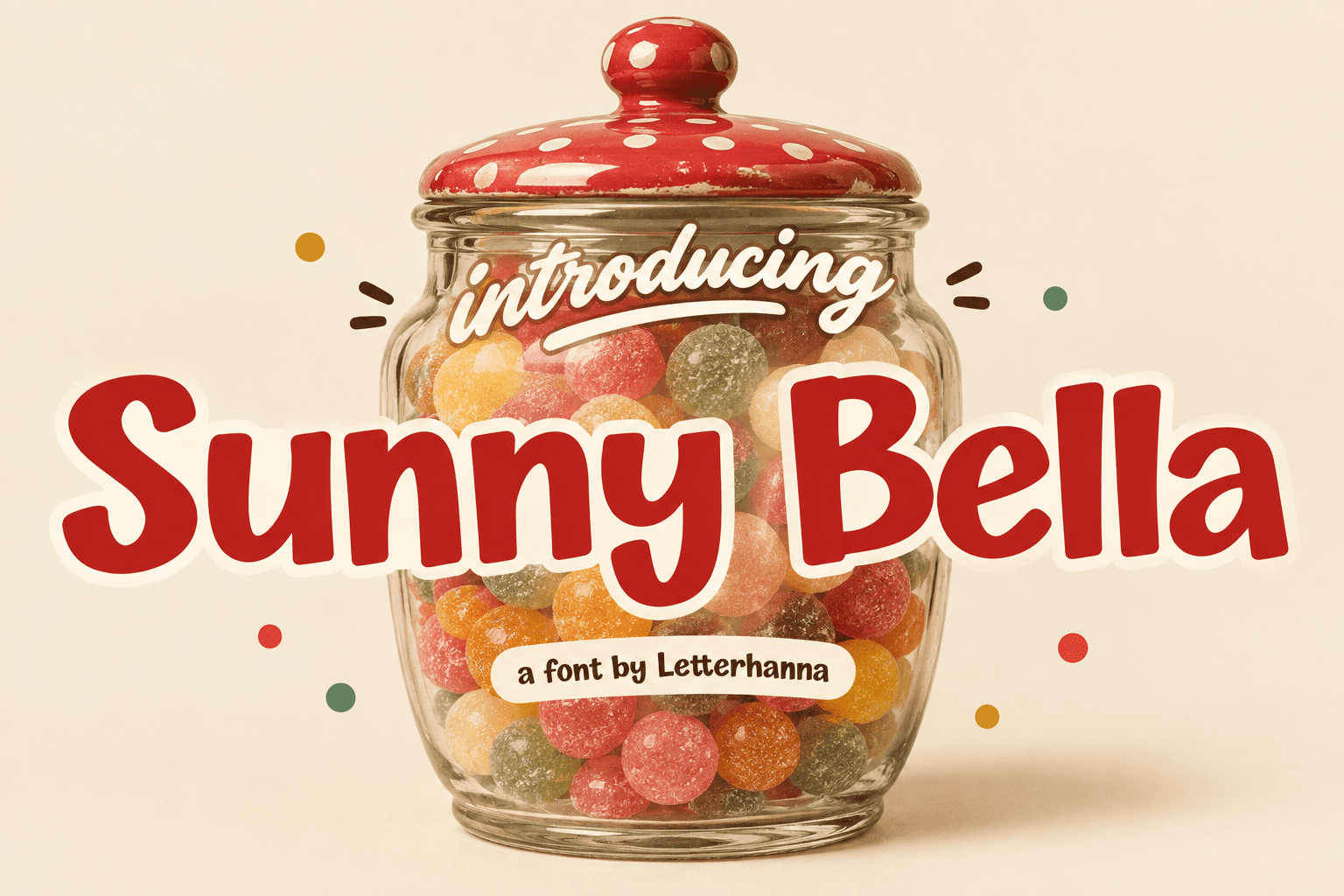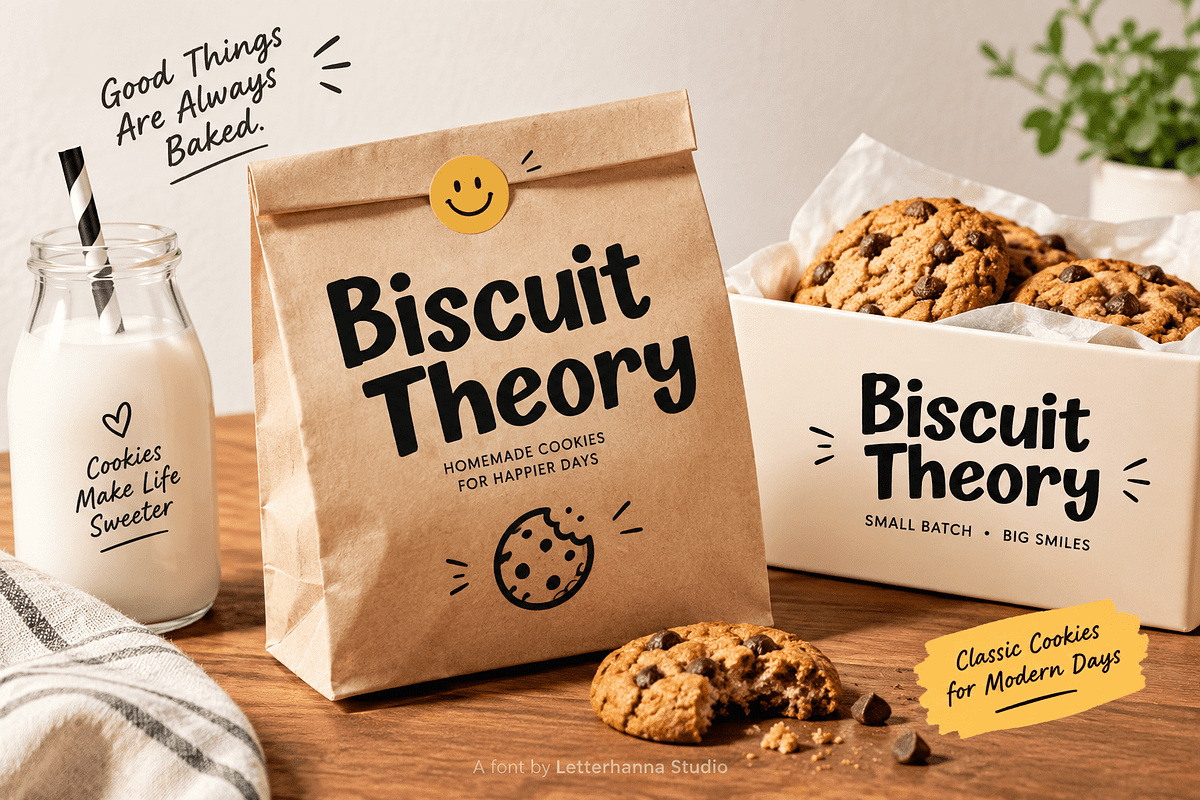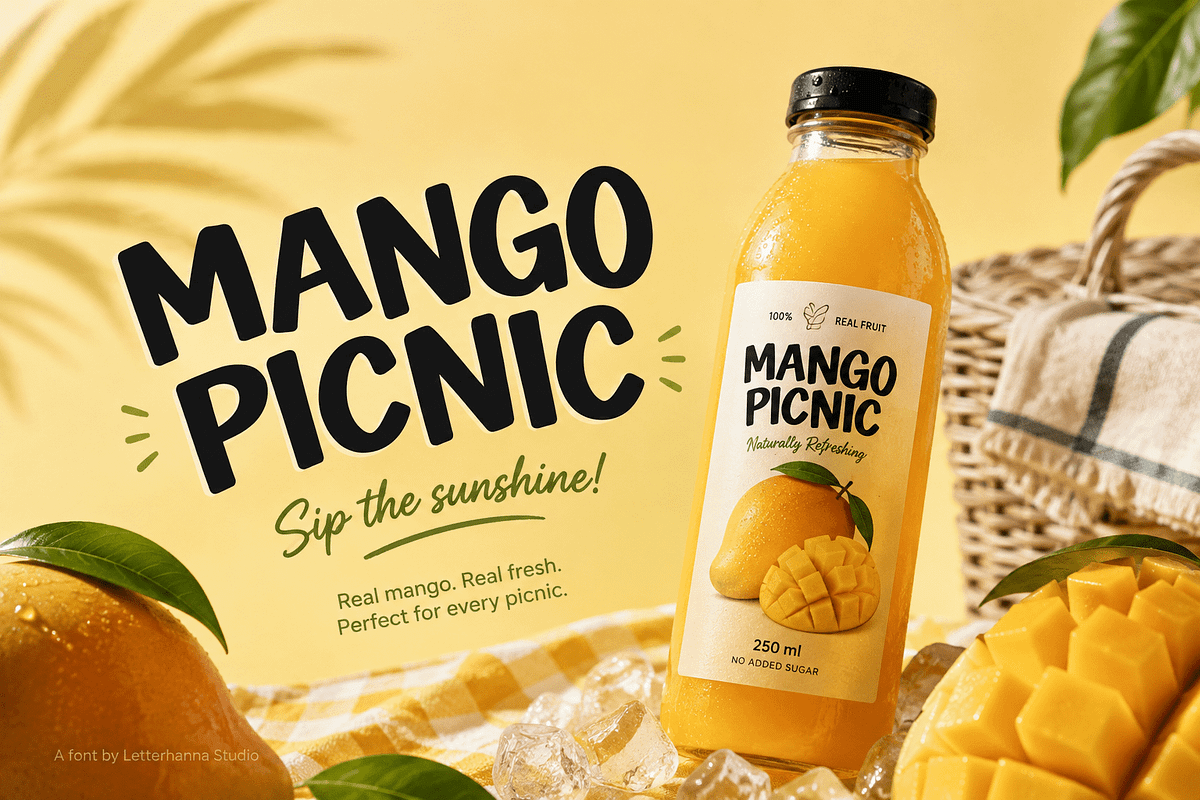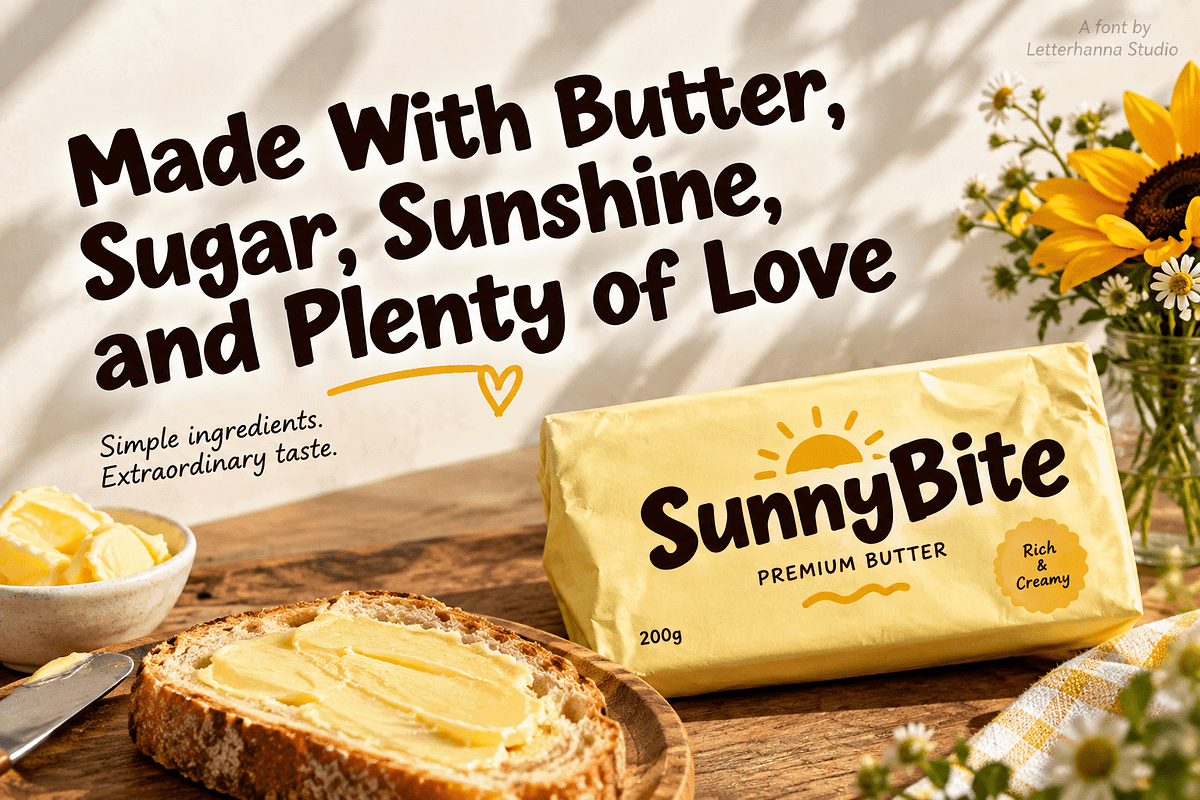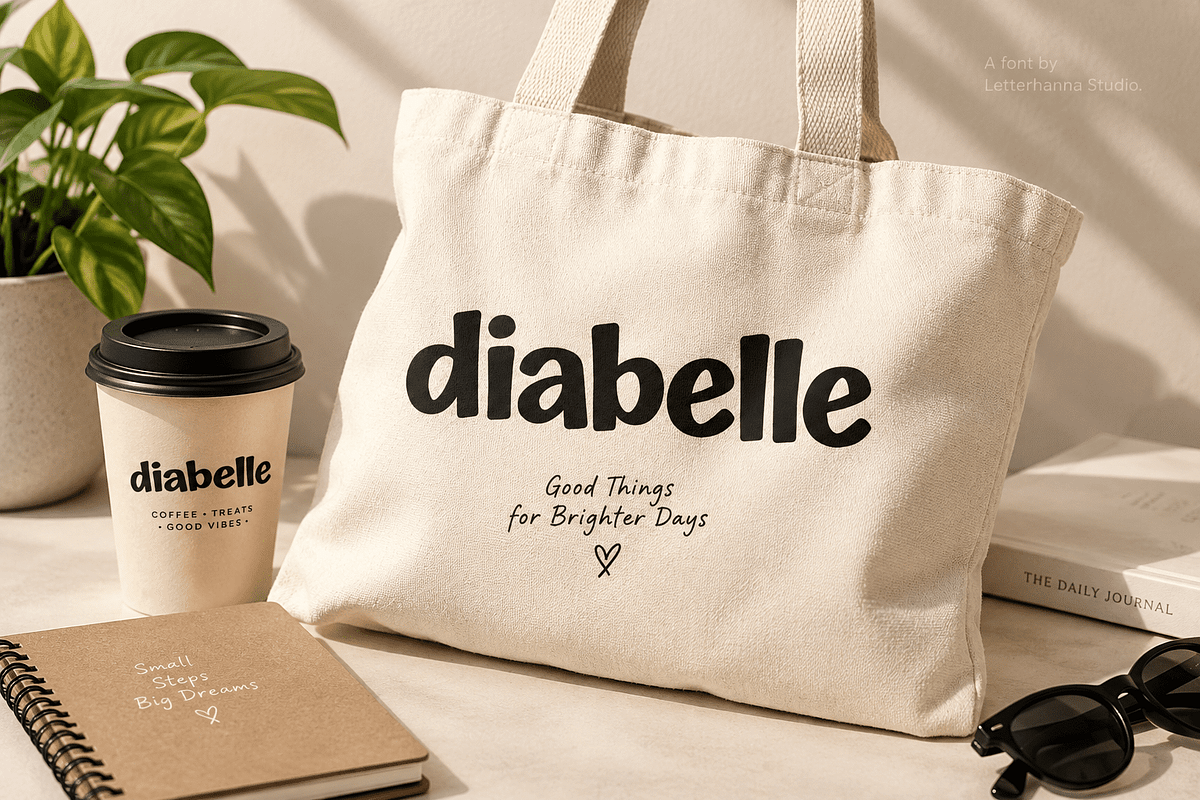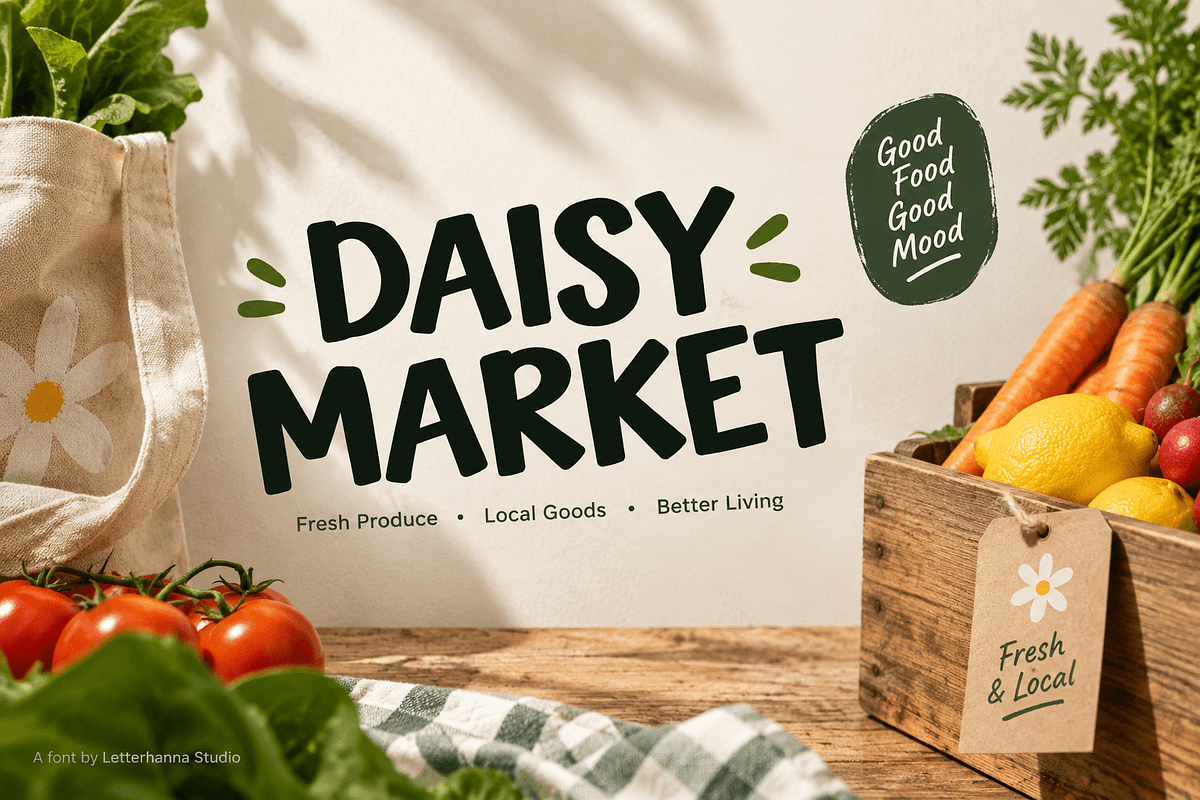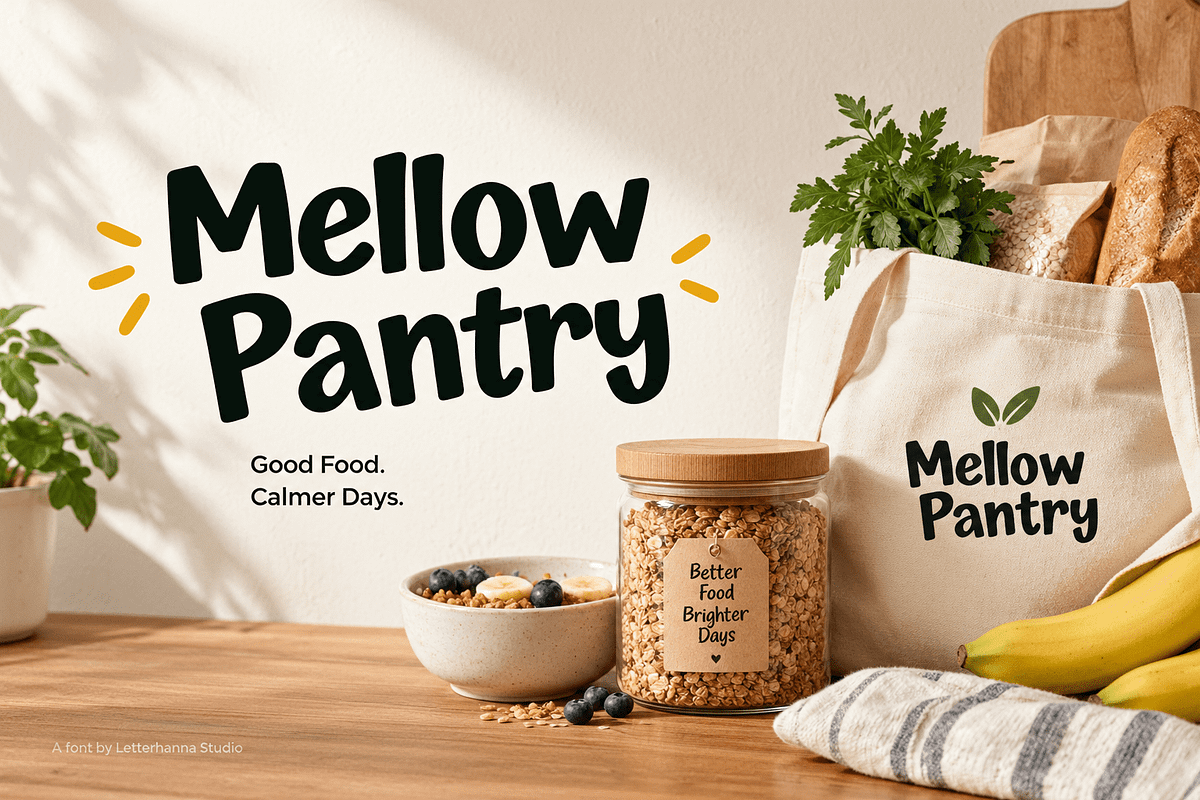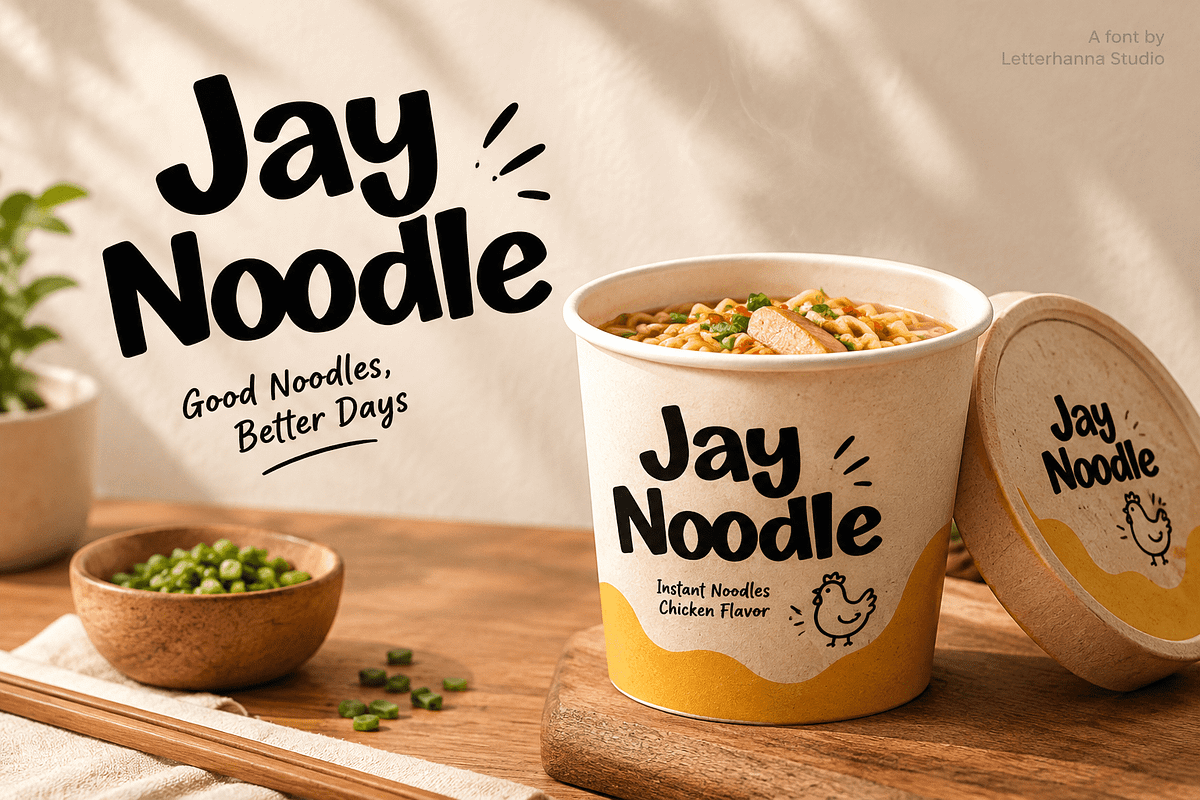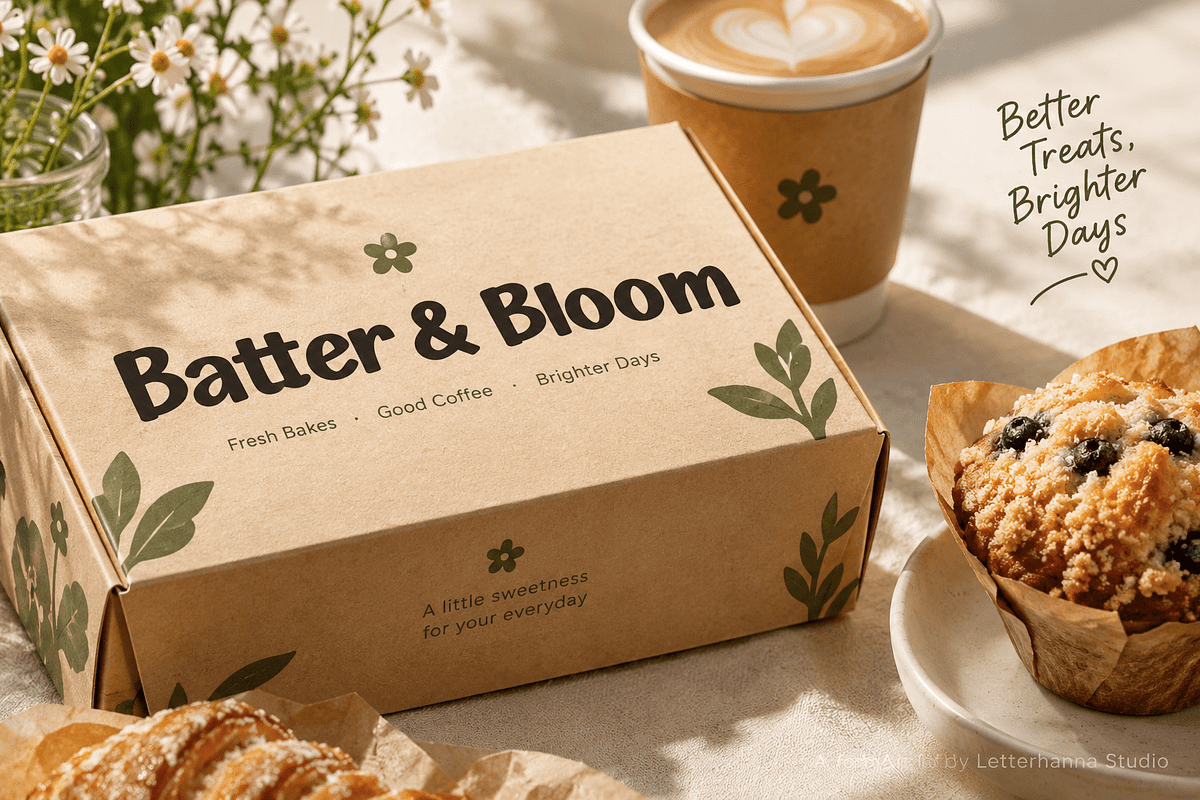
Sunny Bella Cute Font
Meet Sunny Bella, a Cute Font designed to turn ordinary words into cheerful visual moments. Inspired by colorful candy jars, sunny afternoons, refreshing mango drinks, and playful packaging, this typeface brings instant personality to your designs.
A Cute Font Made to Feel Happy
Sunny Bella combines the bold presence of a Chunky Font with the friendly energy of a Playful Font. Its rounded, expressive letterforms feel warm, casual, and approachable, making your message look less ordinary and more memorable.
The mockups show how naturally Sunny Bella works with colorful products, food packaging, lifestyle concepts, and cheerful advertising. It can make a simple product name feel like the beginning of a story.
Style & Font Vibe
The style is bold, bubbly, handcrafted, and full of joyful character. Sunny Bella feels like a handwritten sign at a summer picnic—spontaneous, colorful, and impossible to ignore.
Its chunky silhouette gives headlines strong visual impact, while its playful curves keep the overall composition approachable. This balance makes it especially effective when you want a design to feel both bold and cute.
Where to Use Sunny Bella
Packaging and product labels
Food, beverage, and candy branding
Social media graphics and promotional posts
Kids and lifestyle branding
Posters, stickers, invitations, and merchandise
Tell a Story, Not Just a Message
A strong design does more than announce a product. It creates a tiny world around it. With Sunny Bella, “Mango Picnic” becomes a sunny experience, while “Sunny Bella” feels like a cheerful character waiting to be discovered.
The mindblowing point? Sometimes changing the typography is enough to completely change how a product feels. The right Cute Font can turn a plain headline into the visual personality of an entire brand.
Bring Your Ideas to Life
If your design feels too serious, generic, or forgettable, Sunny Bella adds the missing spark. Use it when you want your audience to smile before they even read the full message.